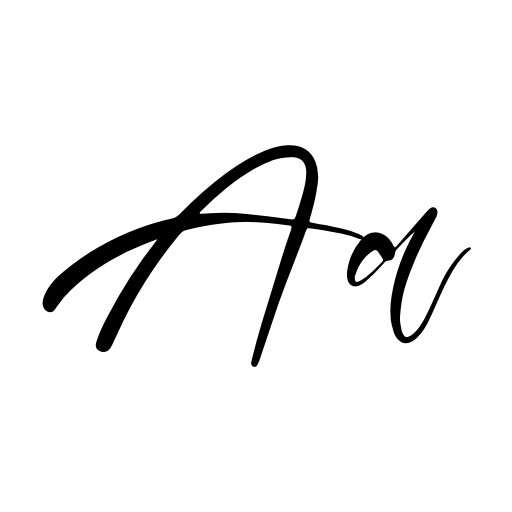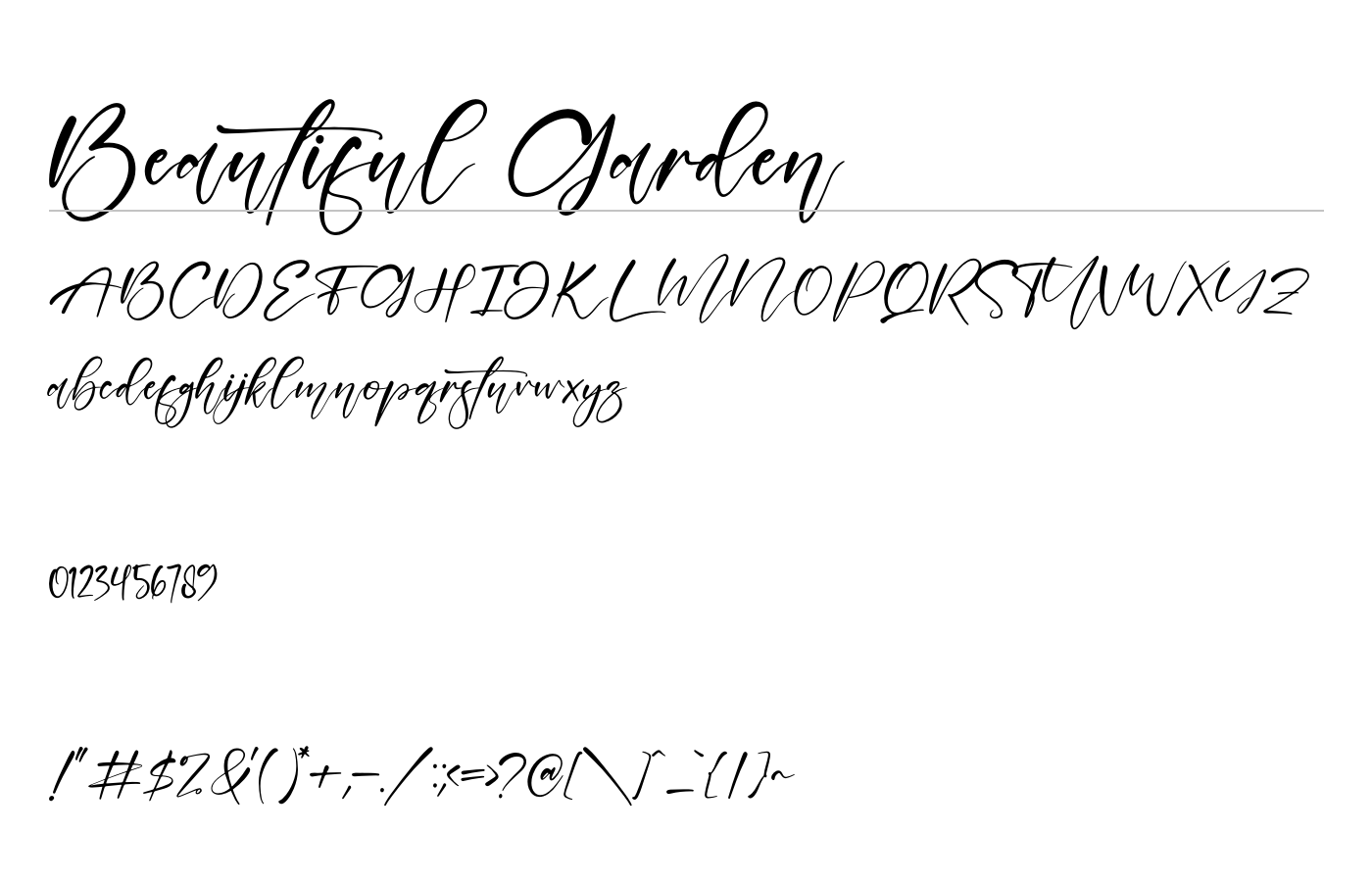
Beautiful Garden Font is an elegant, modern script typeface that features flowing, hand-drawn letterforms with varying stroke weights, giving it a delicate and graceful feel. Its tall x-height and smooth curves make it perfect for sophisticated branding, wedding invitations, and stylish headlines where a personal, artistic touch is desired. This font works beautifully in projects that aim to convey romance, luxury, and creativity.
Beautiful Garden Font
About Beautiful Garden Font
| Font family | Beautiful Garden Font |